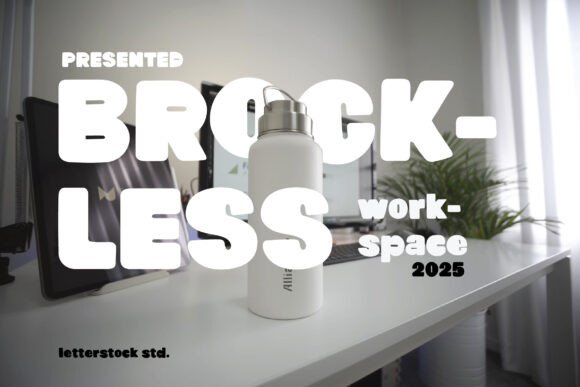
The Brockless Font: A Bold, Trendy Addition to Your Design Arsenal
An Honest Review of Brockless
- ✨ Bold and eye-catching: Brockless is a bold, all-caps display font that’s sure to turn heads.
- ✅ Versatile: Whether you’re using it for crafting, digital designing, presentations, or greeting cards, Brockless is the perfect choice.
- 💻 Easy to read: Despite its boldness, Brockless is surprisingly easy to read, even at smaller sizes.
While Brockless is an excellent font, it’s not without its quirks. For example:
- 🤔 Limited use cases: Due to its boldness, Brockless may not be the best choice for body text or long-form content.
- ⚠️ Overuse can be overwhelming: Use Brockless sparingly to avoid overwhelming your design.
The Backstory Behind Brockless
Brockless was designed by a team of typographers who wanted to create a font that was both bold and elegant. Inspired by modern design trends and classic typography, Brockless is the perfect blend of style and functionality.
Q: What is Brockless font?
A: Brockless is a bold, all-caps display font featuring the perfect amount of trendiness.
Q: What can I use Brockless for?
A: Brockless is perfect for crafting, digital designing, presentations, greeting cards, and more.
Q: Is Brockless easy to read?
A: Despite its boldness, Brockless is surprisingly easy to read, even at smaller sizes.